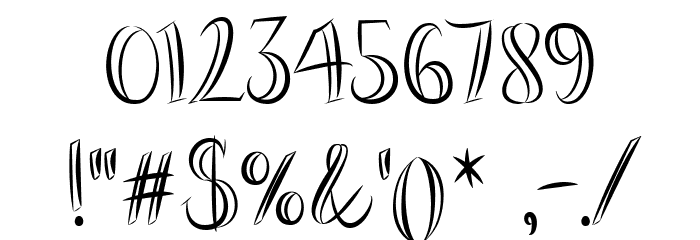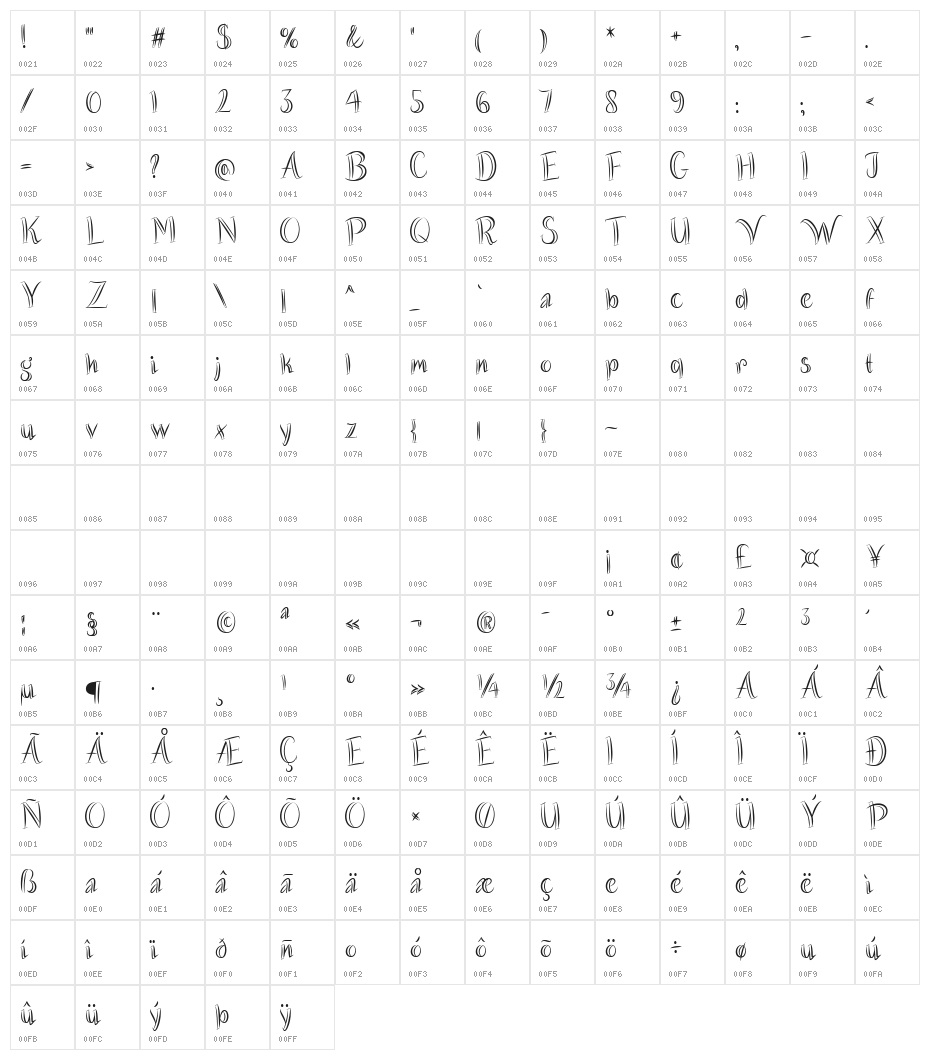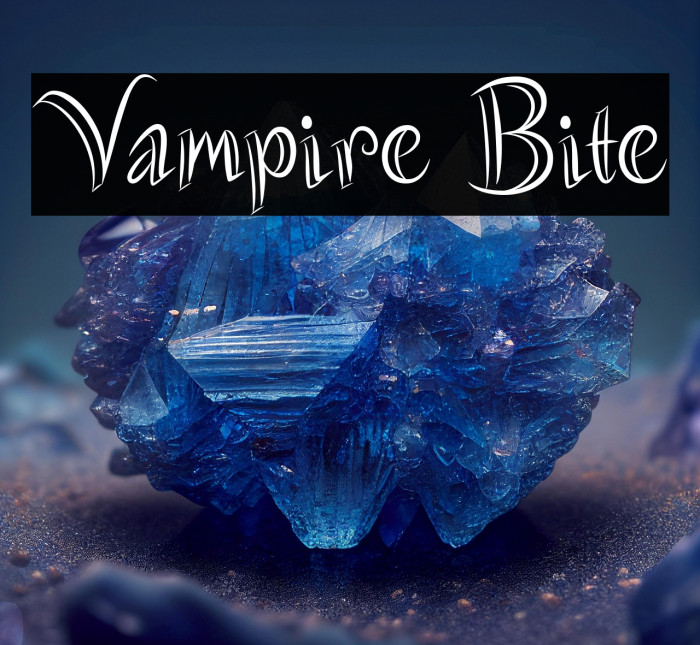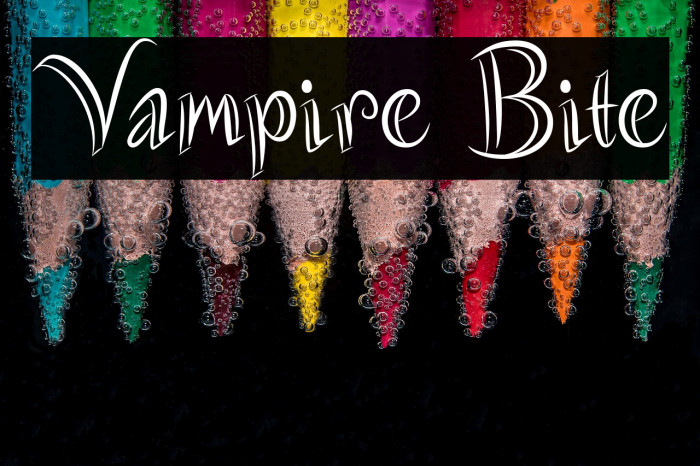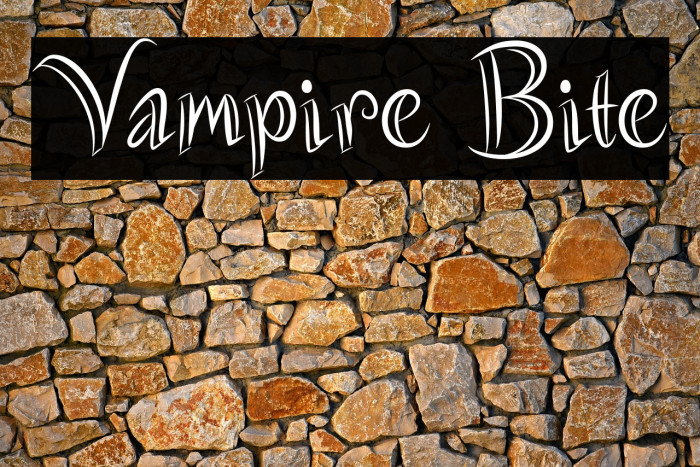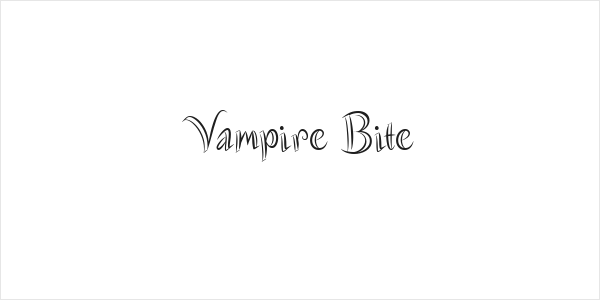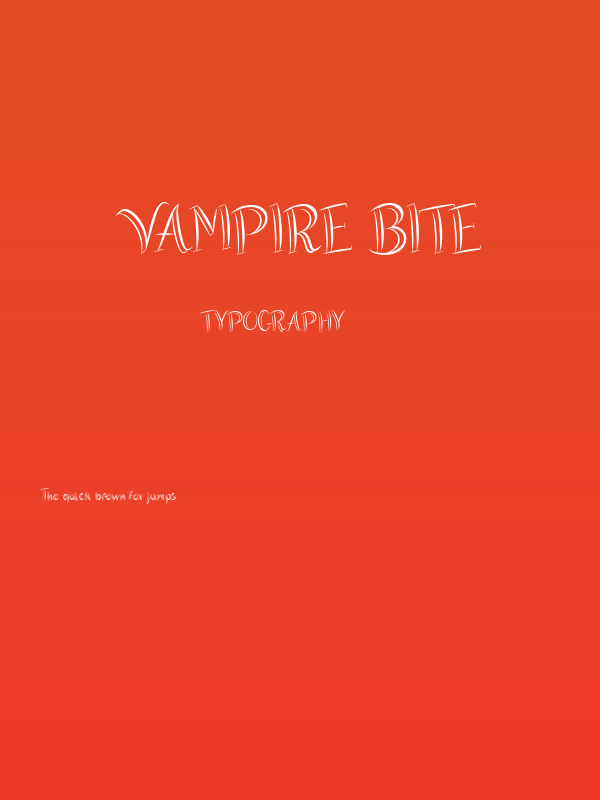
Vampire Bite Font
Vampire Bite Description
This font features a unique and edgy design, characterized by sharp, angular lines and a slightly gothic aesthetic. The letters have a hand-drawn quality, with varying stroke widths that create a dynamic and somewhat dramatic appearance. The uppercase letters are bold and commanding, while the lowercase letters maintain a consistent style that complements the overall look. Numbers and special characters are designed with the same attention to detail, ensuring a cohesive visual experience. The font's distinctive style makes it ideal for projects that require a touch of the unconventional or a hint of mystery.
| Overall Style | Gothic, Edgy, Hand-drawn |
| Proposed Projects | Perfect for Halloween-themed designs, book covers, posters, and branding that requires a bold, mysterious touch. |